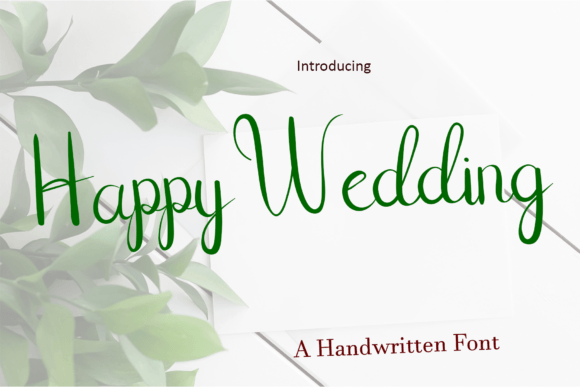
The Perfect Font for Your Dream Wedding
Imagine you’re flipping through a beautifully designed wedding invitation, and the elegant handwriting catches your eye. The letters seem to dance across the page, inviting you to the most special day of the couple’s life. This is exactly the feeling you want to create for your clients when designing their wedding materials – and that’s where the Happy Wedding Font comes in.
This stunning font is designed to evoke a sense of romance and sophistication, making it perfect for wedding invitations, save-the-dates, and other special occasion designs. With its flowing lines and varied baselines, the Happy Wedding Font maintains a classy calligraphic influence while feeling contemporary and fresh.
Happy Wedding Font Key Features
- Font Style: A beautiful, elegant, and modern script font designed specifically for wedding invitations and other special occasions.
- Unique Characteristics: Features swashes, flourishes, and other decorative elements that add a touch of romance and whimsy to wedding designs.
Designer Review: Happy Wedding Font
Happy Wedding Font is a beautiful, hand-drawn font that’s perfect for weddings and other special occasions. Here’s my honest review:
- The font is incredibly elegant and sophisticated, making it perfect for formal wedding invitations and decorations.
- The font is highly customizable, allowing you to adjust the color, size, and spacing to fit your design needs.
- The font is also very versatile and can be used for a variety of wedding-related designs, from save-the-dates to wedding websites.
- The font may not be suitable for casual or informal wedding designs, as it’s quite formal and elegant.
- The font may not be as readable on smaller screens or at smaller font sizes, due to its intricate design.
Overall, I think Happy Wedding Font is a beautiful and versatile font that’s perfect for formal wedding designs. While it may have some limitations, the benefits far outweigh the drawbacks. I would definitely recommend this font to designers looking for a sophisticated and elegant wedding font.
Tips for Getting the Most Out of Happy Wedding Font
Here are some tips to get the most out of Happy Wedding Font:
- Use it in combination with other playful fonts to create a unique look.
- Adjust the font size and color to match your design theme.
- Experiment with different font styles, such as bold or italic, to add emphasis.
Here are some common use cases for Happy Wedding Font:
- Event signage and banners.